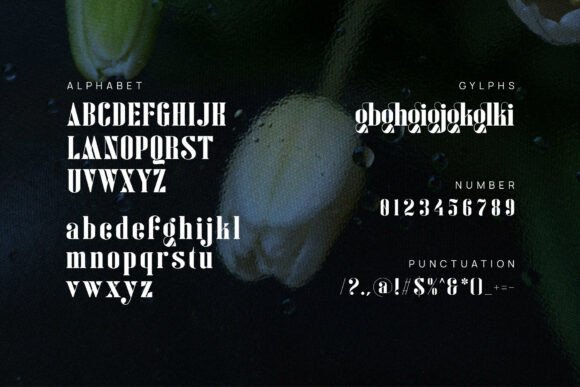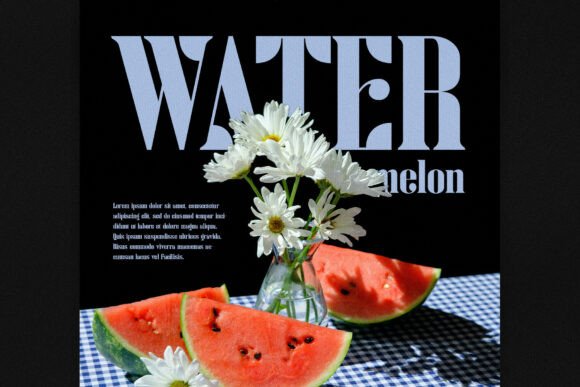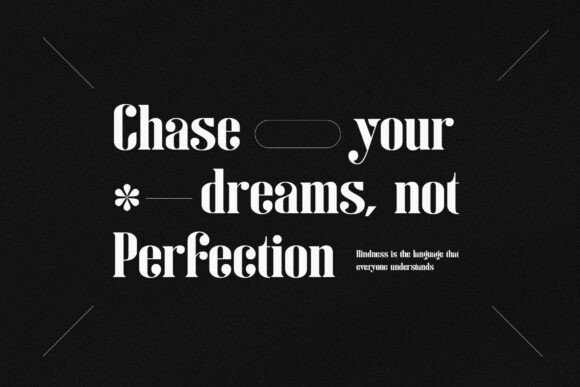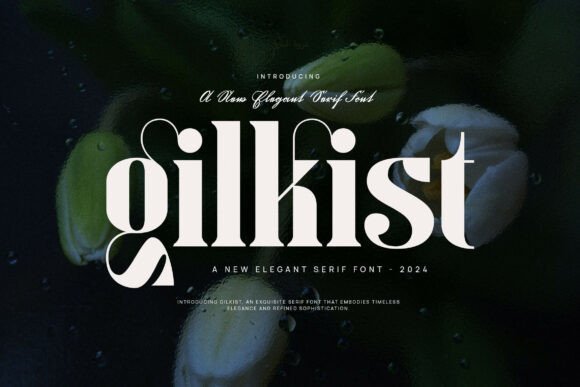
Introduction to Gilkist Font
Gilkist is a lovely and timeless serif font.
Key Features of Gilkist Font
Why Choose Gilkist Font?
Gilkist Font offers exceptional quality and versatility, making it a valuable addition to your design toolkit. Whether you’re creating for personal projects or commercial use, Gilkist Font delivers professional results.